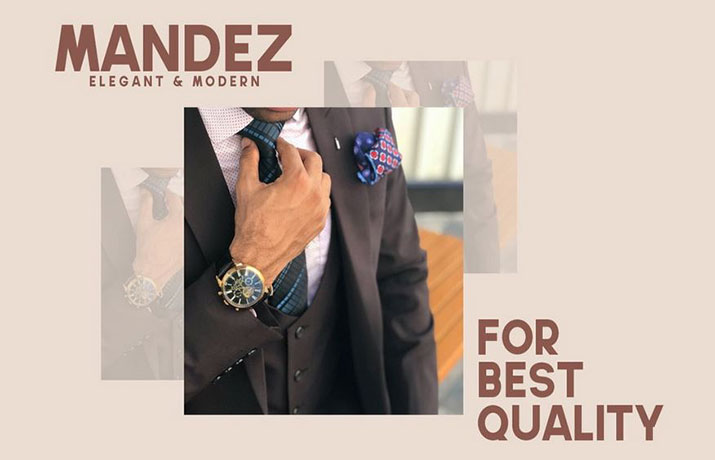
Gila Font is a modern sans serif typeface that letters can create uniform, eye-pleasing logotypes, titles, and texts. It was designed and shared by Khurasan.
This font family comes in two weights including regular and bold. It includes 225 glyphs, uppercase, numbers, symbols, and 374 binary stored kerning pairs. Plus, it also supports 68 languages.
It is a contemporary typeface in which the letters are composed of modified geometric and minimalist styles. This ensures a pretty decent setting.
Its modern, minimalist, and simplistic design makes it a good choice for social media posters, banners, headers, titles, flyers, branding, headlines, product packaging, and more.
Features of This Font:
- Uppercase and lowercase letters, numbers, symbols, and punctuation
- 225 glyphs and 374 binary stored kerning pairs
- 68 multilingual languages support
| Style: | Modern, Display, Sans Serif |
- Book covers, product design, special event cards, movie posters, game titles, headers, banners, flyers, brand logos, birthday cards, invitation cards, greeting cards, print-on t-shirts, website development, book covers, game Graphics, paragraphs, web content and much more can be created with this help.